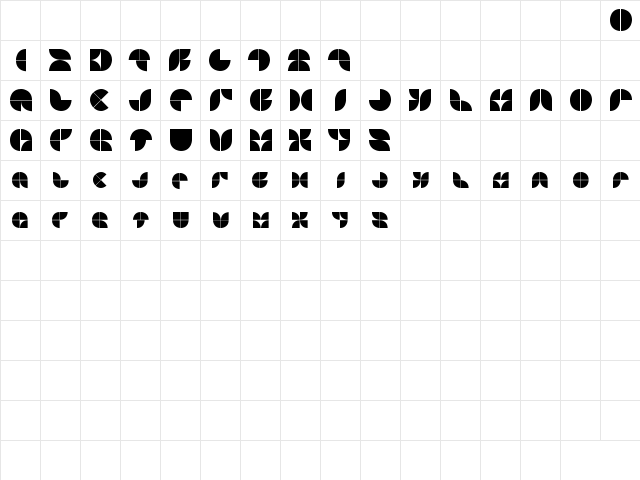
Ogive Curvature Regular
Design Context for Ogive Curvature Typeface
Ogive Curvature is a composed and adaptable typeface that performs quietly and consistently across a wide range of design contexts.